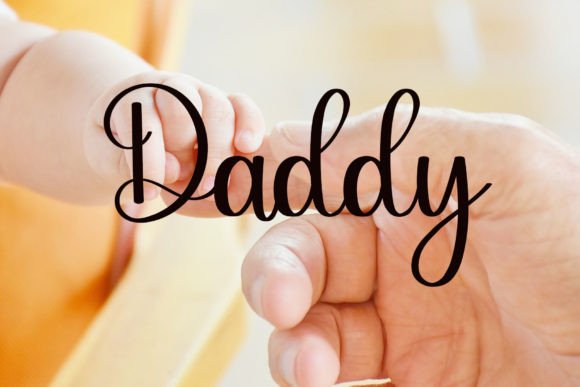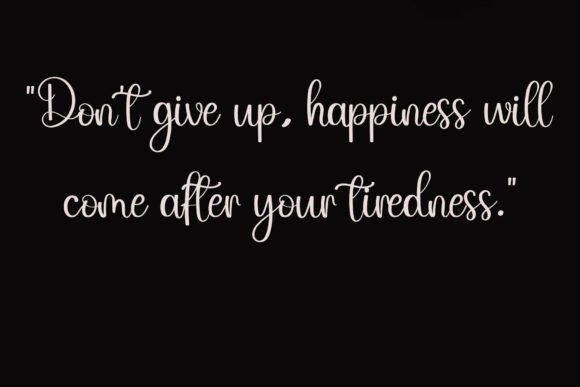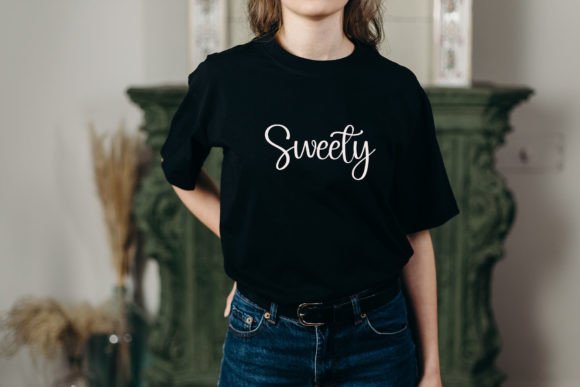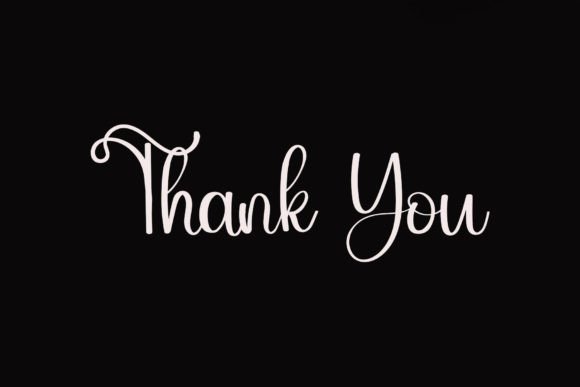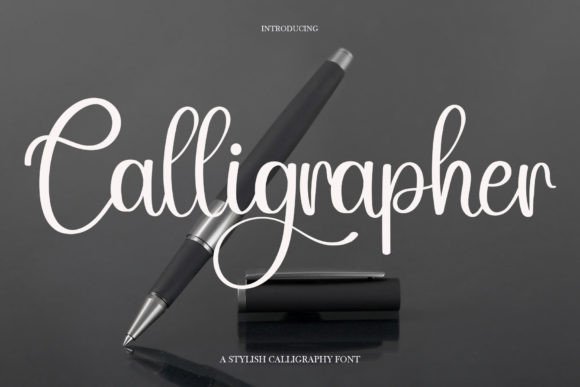
The Elegance of Calligrapher Font: A Designer’s Delight
I’ll never forget the time I was working on a wedding invitation project, and my client asked for a font that exuded elegance and sophistication. I scoured the internet, tried out countless fonts, but nothing seemed quite right. That was until I stumbled upon Calligrapher Font. It was like a breath of fresh air – a trendy handwritten font with a contemporary atmosphere and impeccable form, inspired by timeless classic calligraphy. In this article, I’ll share my experience with Calligrapher Font, its features, and how to make the most of it in your design projects.
Here’s what I’m obsessed with about Calligrapher Font:
- ✨ Elegant and Refined: Calligrapher Font has a sophisticated feel to it, making it perfect for high-end designs, wedding invitations, and luxury branding.
- ✅ Contemporary Twist: The font has a modern touch, which sets it apart from traditional calligraphy fonts.
- 💫 Versatile: It works beautifully in both digital and print formats.
Now, I’m not going to sugarcoat it – there are a few quirks:
- 🤔 Limited Ligatures: While the font has some lovely ligatures, it’s not as extensive as some other calligraphy fonts.
- ⚠️ Not Suitable for Body Text: Calligrapher Font is best used for headlines, titles, or short paragraphs – it’s not ideal for lengthy body text.
- Experiment with OpenType features, such as ligatures and stylistic alternates, to add visual interest.
The Story Behind Calligrapher Font
Calligrapher Font was designed by a team of typographers who aimed to create a font that blended traditional calligraphy with modern sensibilities. Inspired by the work of renowned calligraphers, they crafted a font that would bring elegance and class to any design project. The result is a beautiful, contemporary font that’s perfect for designers, crafters, and creative hobbyists.
| Is Calligrapher Font suitable for body text? | No, Calligrapher Font is best used for headlines, titles, or short paragraphs. It’s not ideal for lengthy body text. |